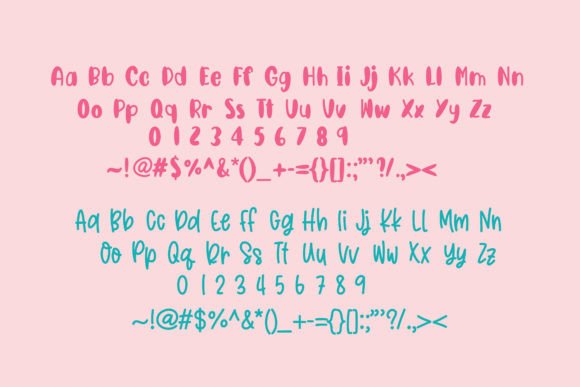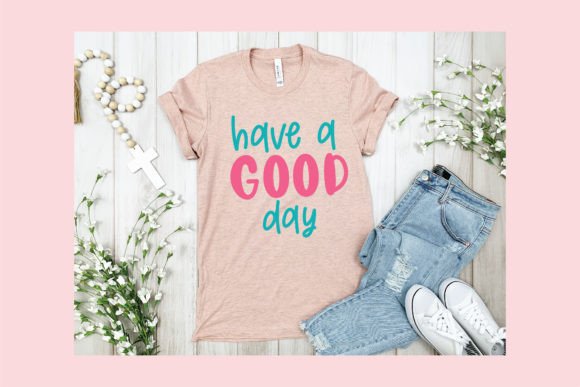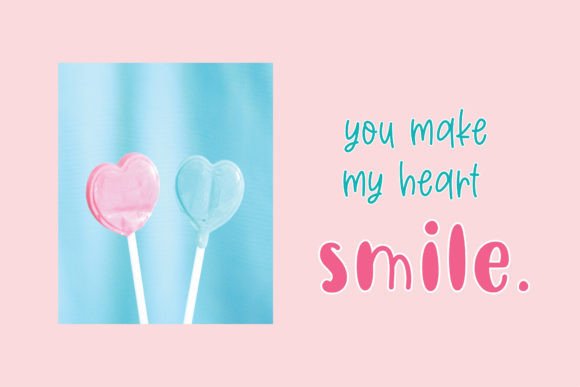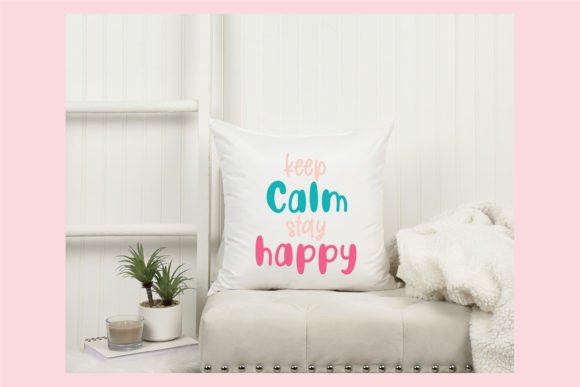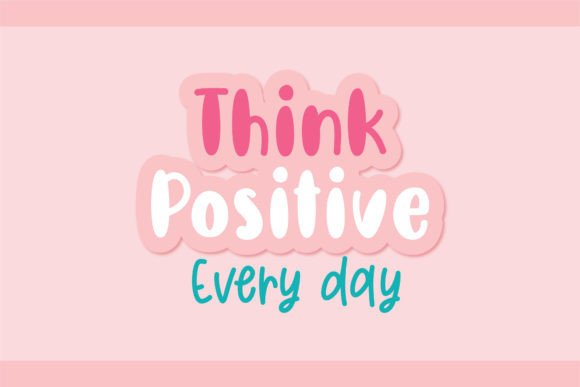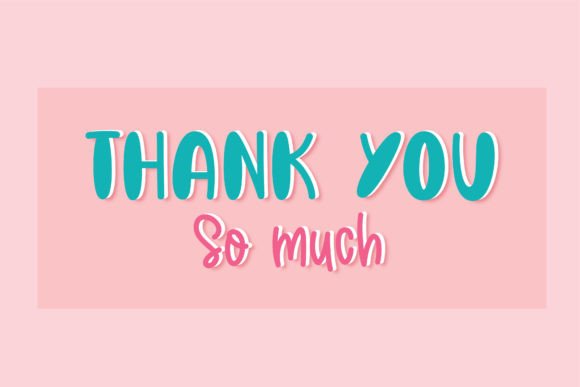
Introducing Chupa Chups/Sweet Jelly Font: The Ultimate Handwritten Delight
Are you on the hunt for a font that can add a dash of whimsy and personality to your designs? Look no further than the Chupa Chups/Sweet Jelly font! This adorable handwritten font is making waves in the design community, and for good reason. Its unique, natural style makes it an incredibly versatile choice for a wide range of projects. In this article, we’ll dive into the world of Chupa Chups/Sweet Jelly and explore what makes it so special.
The Charm of Chupa Chups/Sweet Jelly
Chupa Chups/Sweet Jelly is a beautifully crafted handwritten font that exudes a sense of playfulness and charm. Its soft, rounded edges and varying line widths give it a delightfully organic feel that’s reminiscent of handwritten notes and sweet treats. This font is perfect for designers and crafters who want to add a personal touch to their work, whether it’s a logo, branding materials, or a DIY project.
What Makes Chupa Chups/Sweet Jelly So Versatile?
One of the standout features of Chupa Chups/Sweet Jelly is its incredible flexibility. This font can be used in a wide range of contexts, from:
- Logos and branding: Create a unique and memorable brand identity with Chupa Chups/Sweet Jelly. Its playful style is perfect for businesses that want to stand out and make a statement.
- Stationery and invitations: Add a touch of whimsy to your stationery, invitations, and greeting cards with this delightful font.
- DIY projects: Whether you’re making crafts, decorations, or gifts, Chupa Chups/Sweet Jelly is the perfect choice for adding a personal touch.
- Digital designs: Use this font in your digital designs, such as social media graphics, blog posts, and website headers, to add a dash of personality and style.
Exploring the Endless Variations of Chupa Chups/Sweet Jelly
One of the most exciting things about Chupa Chups/Sweet Jelly is the endless variations you can create with it. Experiment with different:
- Colors: Try pairing the font with bold, bright colors or soft pastels to create a unique look.
- Textures: Add texture to your designs with Chupa Chups/Sweet Jelly. You can use it with smooth, rough, or even glittery textures.
- Layouts: Play around with different layouts and arrangements to create visually interesting designs.
- Combinations: Mix and match Chupa Chups/Sweet Jelly with other fonts or graphics to create a truly one-of-a-kind look.
Tips and Tricks for Working with Chupa Chups/Sweet Jelly
To get the most out of Chupa Chups/Sweet Jelly, here are a few tips and tricks to keep in mind:
- Keep it simple: Don’t be afraid to use Chupa Chups/Sweet Jelly on its own. Its natural style is beautiful and elegant.
- Experiment with sizes: Play around with different font sizes to create visual interest and hierarchy in your designs.
- Use it with images: Combine Chupa Chups/Sweet Jelly with images or graphics to create a unique and eye-catching design.
| Font Name | Chupa Chups/sweet Jelly Font |
| Author | GoodMoodType |